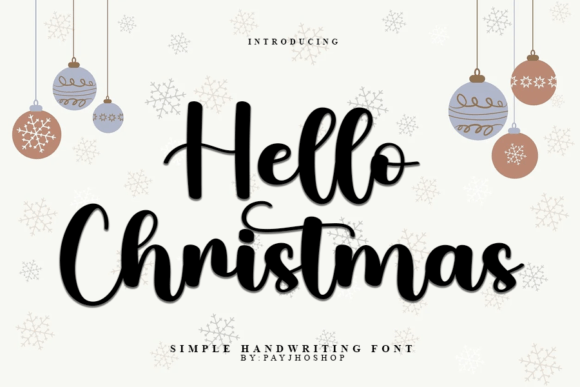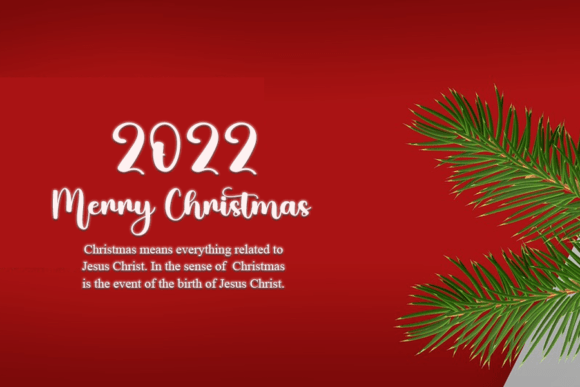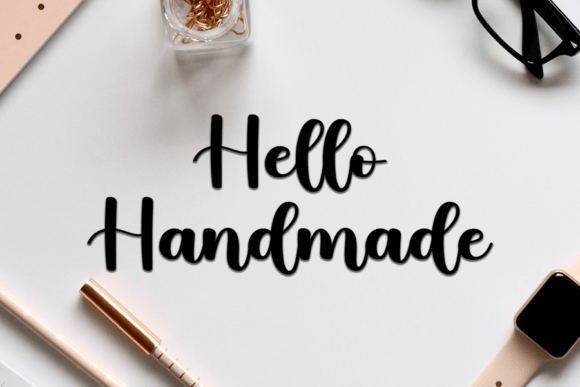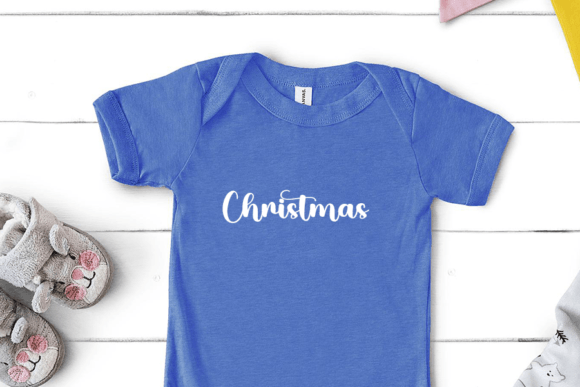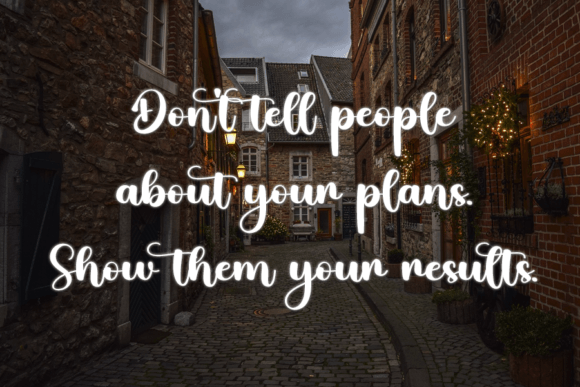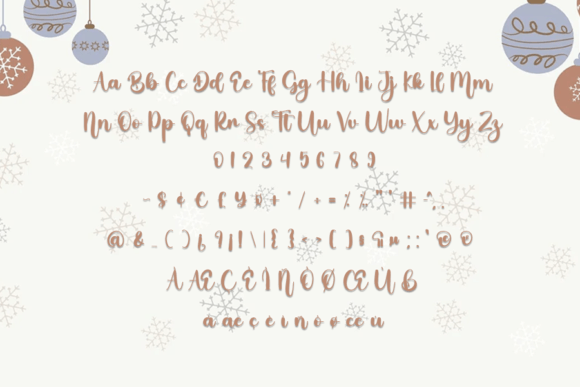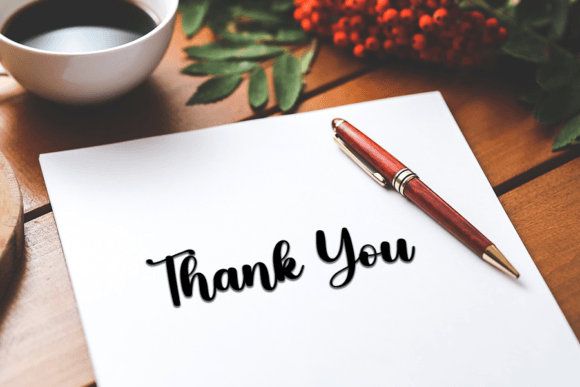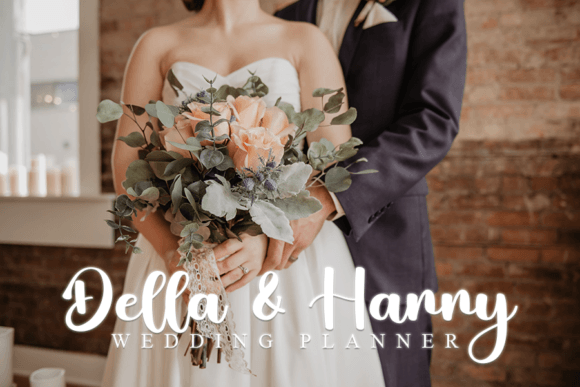
Hello Christmas Font
About Hello Christmas Handwritten Font
Hello Christmas HandwrittenFont is a bold and elegant script designed to capture the joy and charm of the holiday season. With stylish strokes and smooth curves, it delivers the warmth of handwritten lettering combined with the sophistication needed for seasonal projects. Because of its versatility, Hello Christmas Handwritten Font is ideal for crafts, digital designs, greeting cards, packaging, and decorative branding.
A Bold Typeface with Festive Personality
Handwritten fonts often bring authenticity, and Hello Christmas Handwritten Font enhances that feeling with confidence. Its bold strokes make it stand out, while its graceful flow keeps designs approachable and stylish. In addition, it balances clarity with creativity, making it perfect for both formal and fun seasonal designs.
Perfect Typeface for Greeting Cards and Invitations
Christmas cards, invitations, and seasonal stationery benefit greatly from Hello Christmas HandwrittenFont. For example, it can transform simple greetings into stylish and memorable designs. Moreover, it enhances wedding invitations, holiday menus, and thank-you notes with an elegant handwritten touch.
A Script Typeface for Branding and Packaging
Brands and creators can also benefit from Hello Christmas HandwrittenFont. It works beautifully for logos, product labels, and festive packaging. Furthermore, it is highly effective in promotional materials, social media posts, and advertising campaigns. When combined with minimalist sans serif fonts, it creates a modern yet festive design balance.
Flexible Across Print and Digital Platforms
Another advantage of Hello Christmas Handwritten Font is its adaptability across platforms. In print, it looks polished on posters, brochures, and gift tags. Digitally, it elevates websites, blogs, and online shops with seasonal charm. Since it maintains readability in both small and large sizes, it is suitable for stickers, cards, and banners alike.